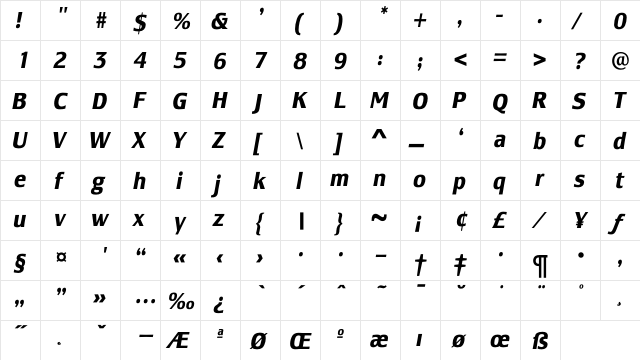
LesmoreBoldCondensedItalic Regular Font Preview
Design Context for LesmoreBoldCondensedItalic Typeface
LesmoreBoldCondensedItalic offers clean, dependable letterforms without strong stylistic allegiance, making it a practical choice for designers who need flexibility. The slanted form adds forward momentum and visual energy. The heavy weight commands attention and anchors typographic hierarchies. Its narrow stance lets it pack a punch even in space-constrained designs.
Pro Tip: Try LesmoreBoldCondensedItalic for annotation and caption copy alongside an upright companion — the contrast in angle creates a dynamic but ordered typographic system.